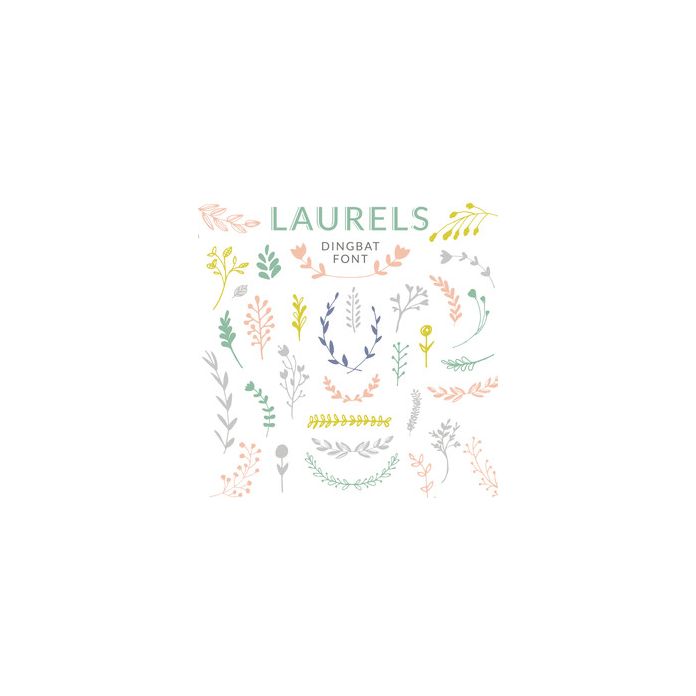
A Cute, Laurel, Hand Drawn Leaf Font by Angie Makes. This Dingbat font includes tons of hand drawn cuteness. Laurel frames, leaves, flowers, and laurel branches included. Uppercase A-Z and lowercase a-z letters are included. Visit angiemakes.com for inspiration on how to use your cute Laurel font!